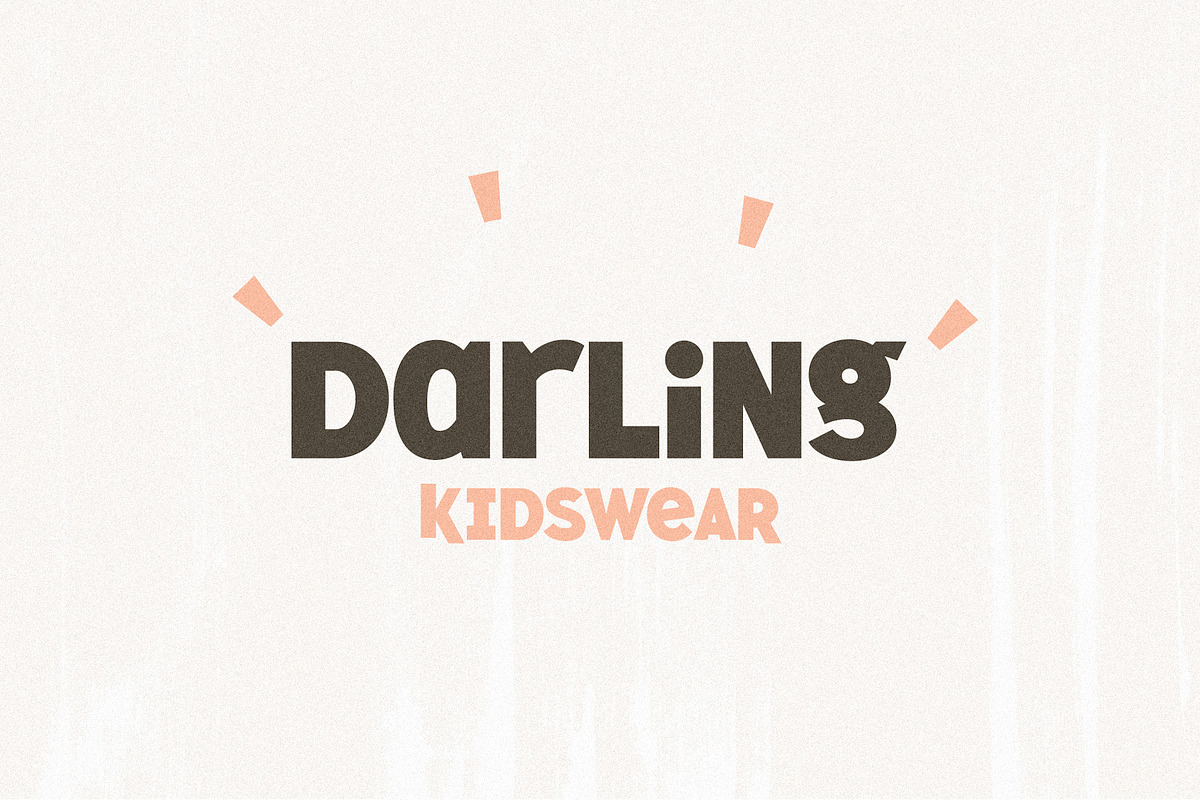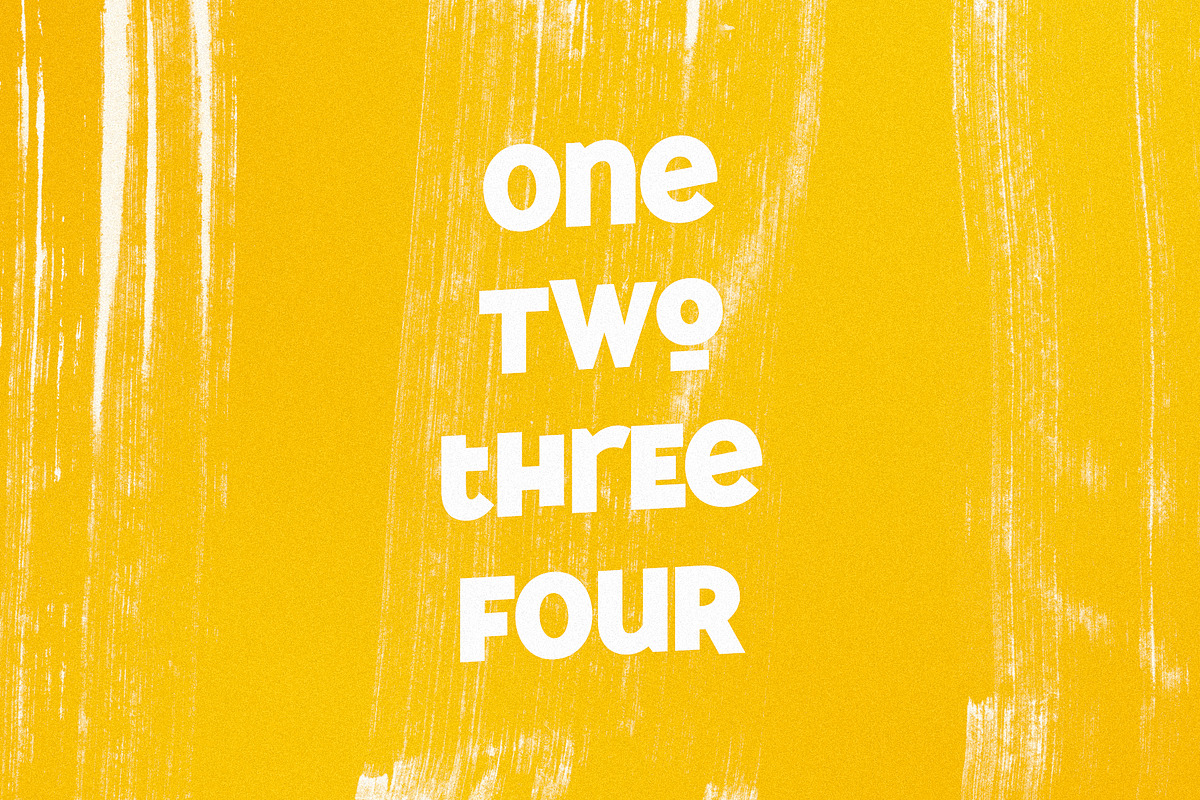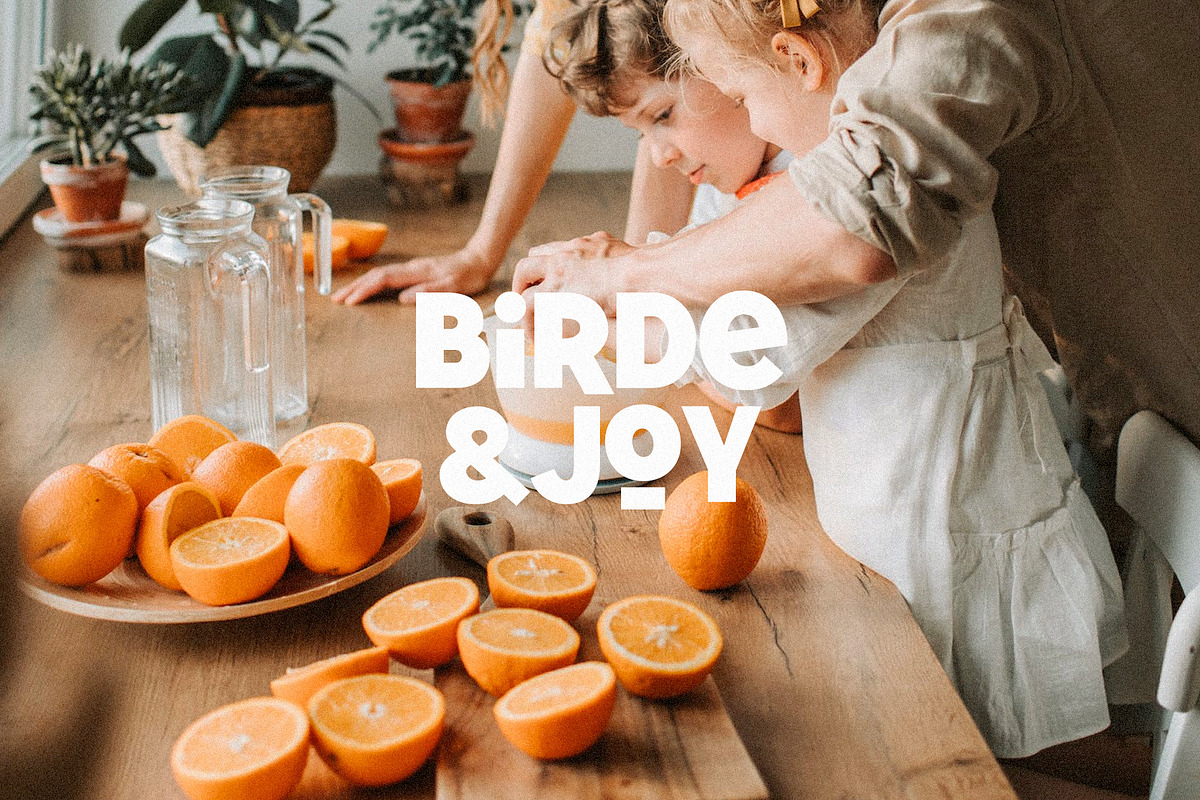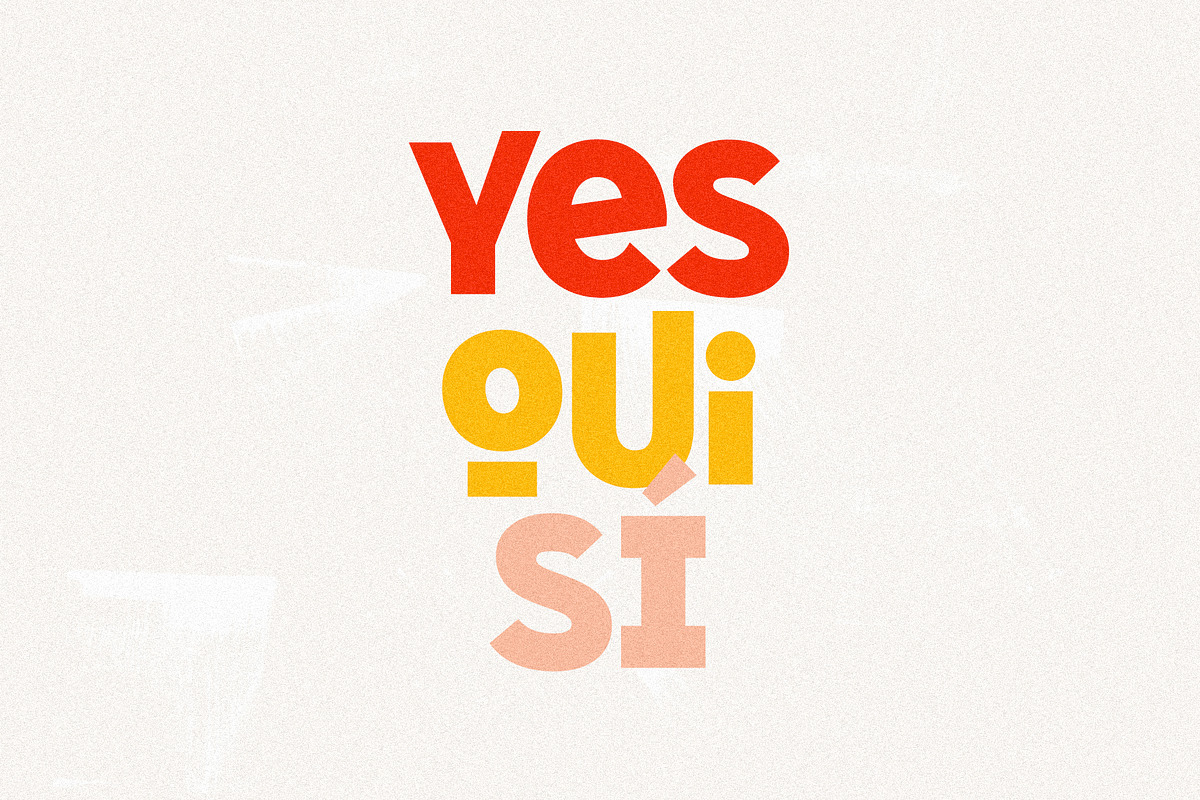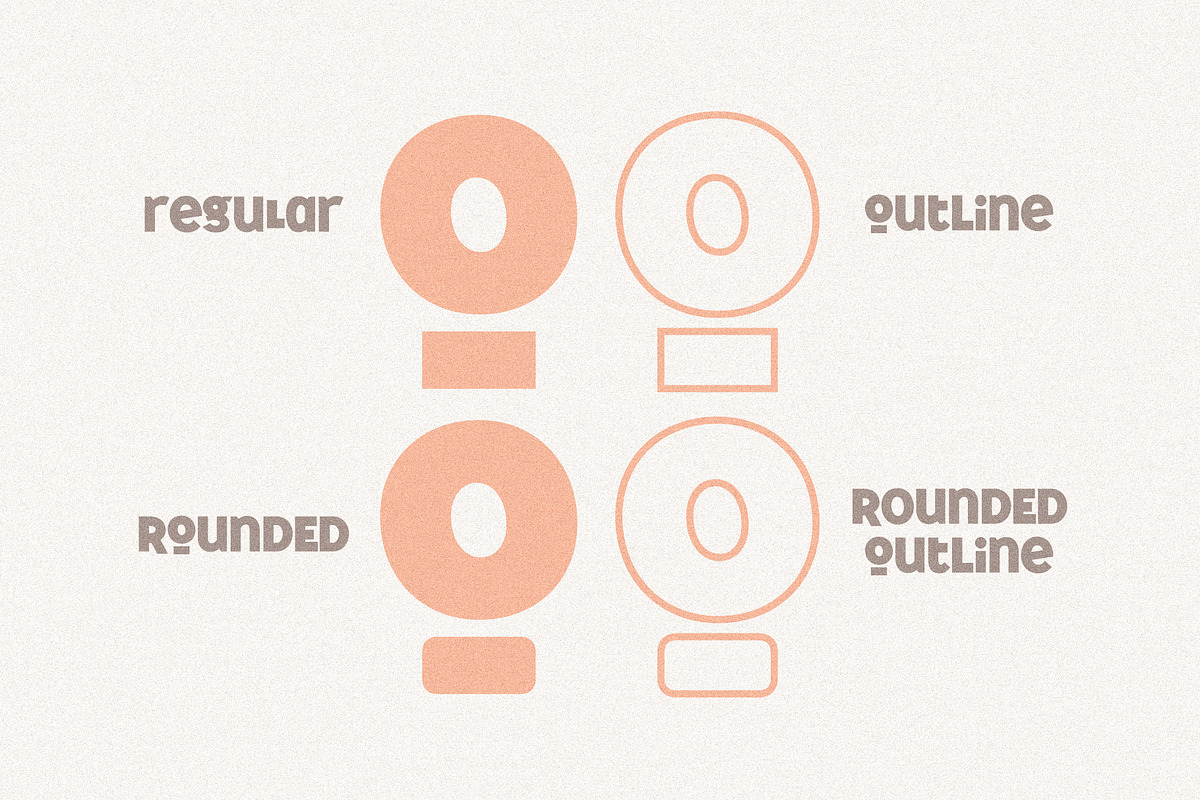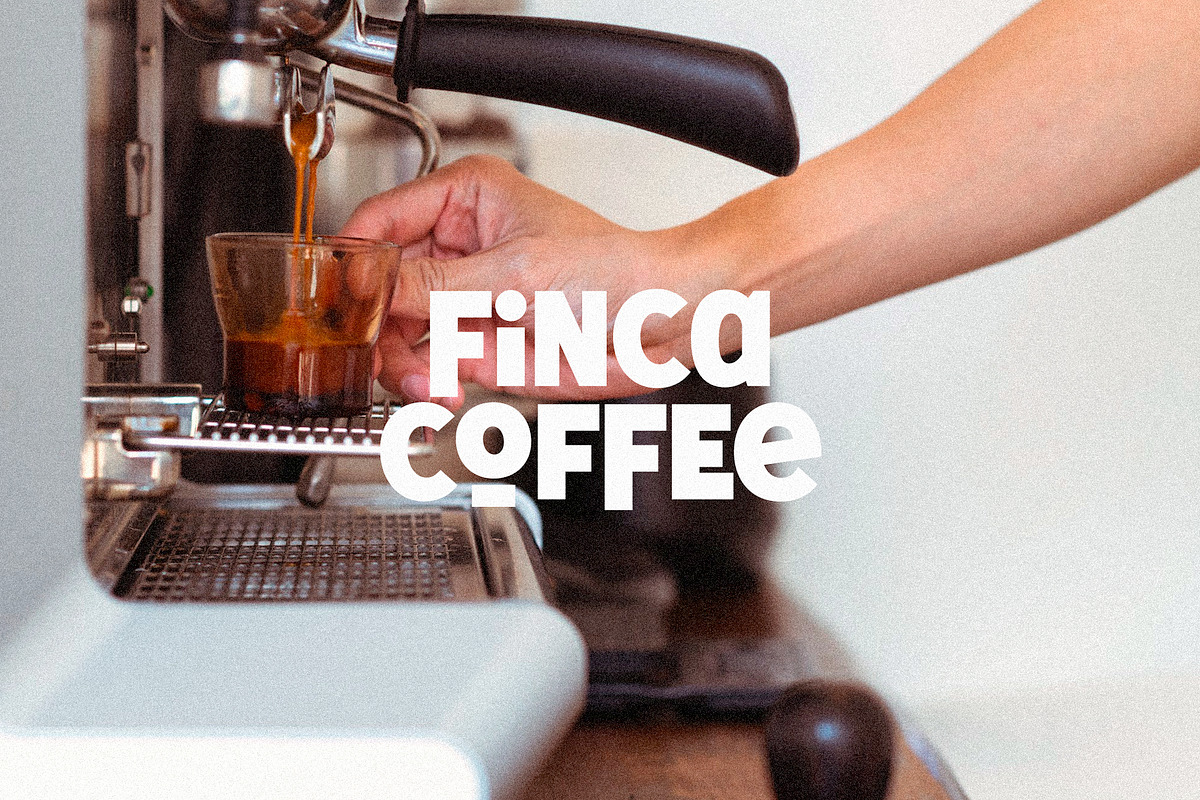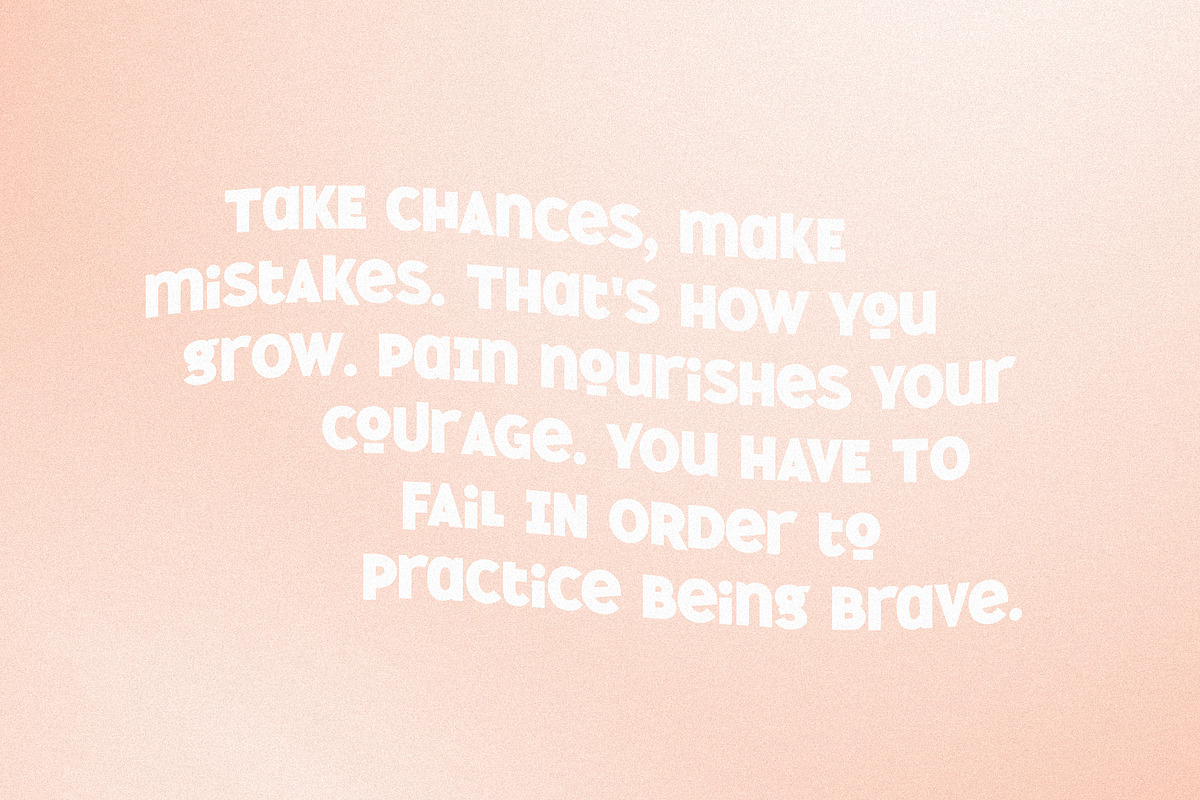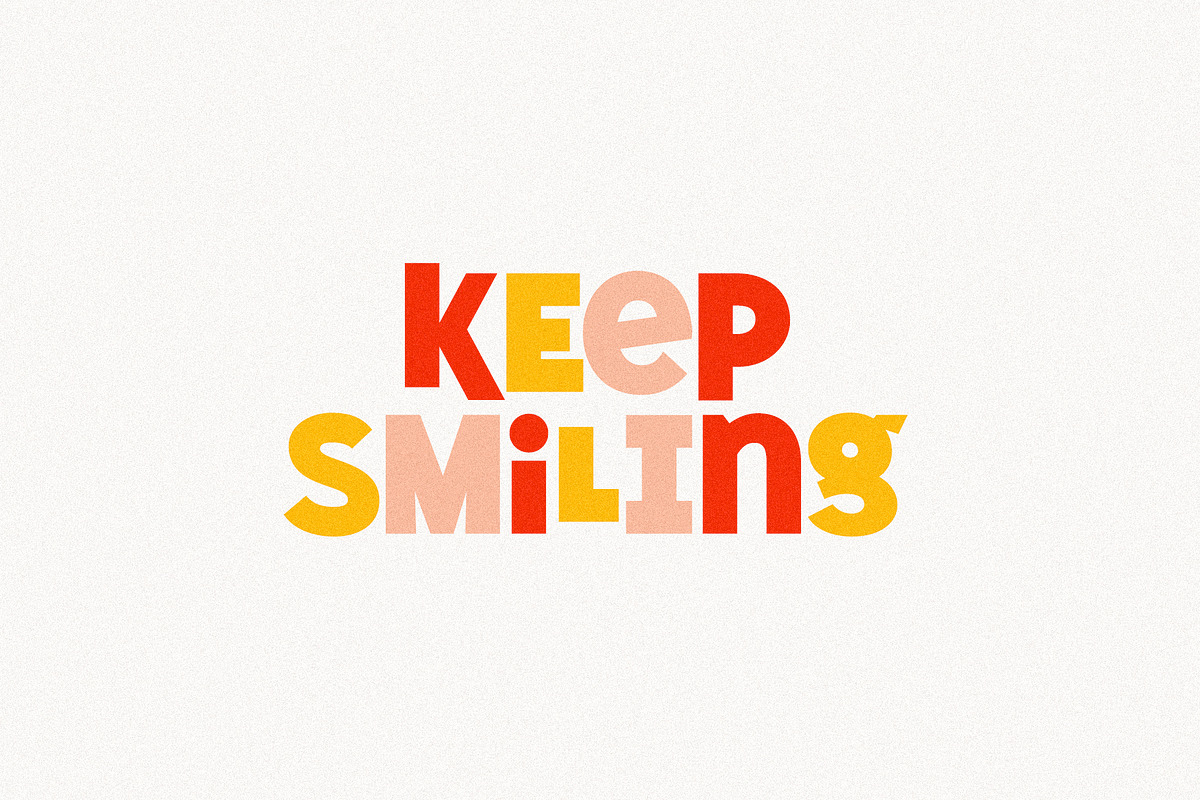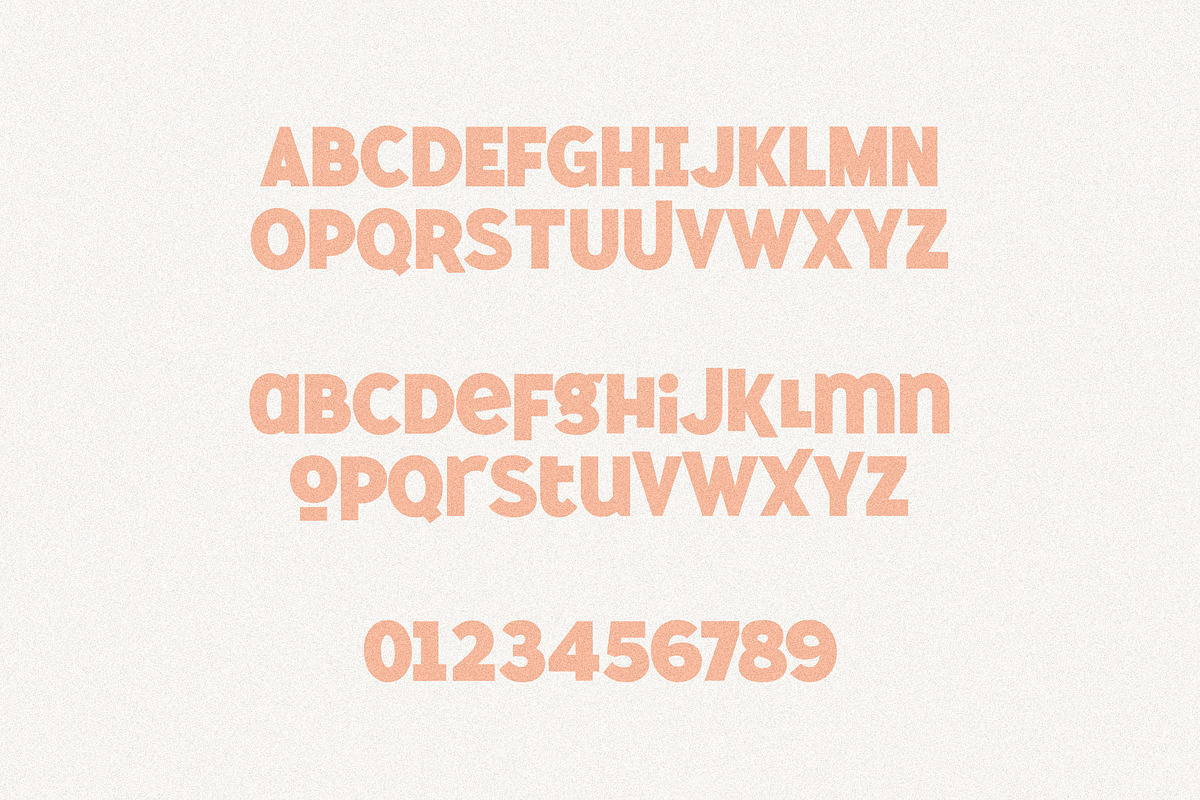
Mochi | A Quirky Sans (4 Styles)
- Four styles: Regular, Rounded, Outline, & Rounded Outline
- Uppercase letters, numbers, & extended punctuation
- Western & Central European support for the international designer
- Alternates for almost every uppercase letter by typing lowercase (ex. B, C, D, Q, S, Z)
Mochi is such a playful new font, perfect for creating quotes, logos, or just adding a fun touch to any project!
While other fonts tend to look super clean and sometimes too serious, Mochi uses alternate letters to create a sense of fun and playfulness.
Nearly every uppercase has alternates for each letter, so when you type uppercase or lowercase, nearly all the letters will change slightly.
So you can mix and match to create the fun logo you've always envisioned!